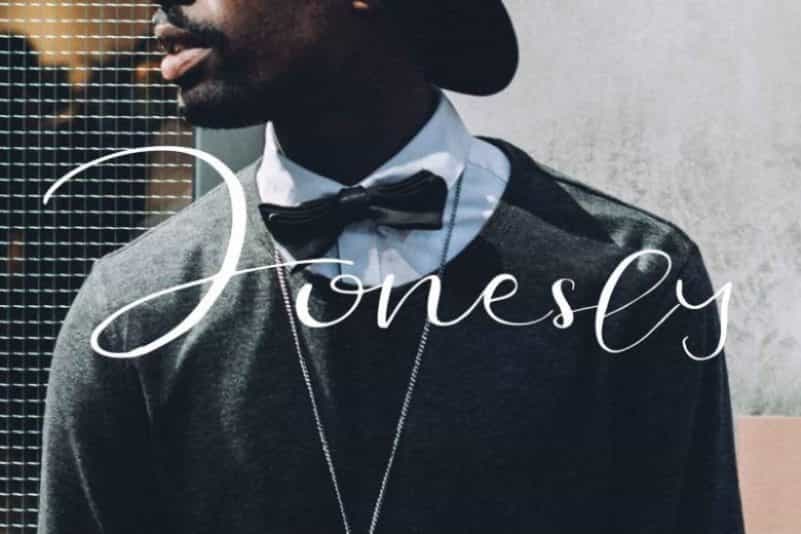
Jonesly Script A new handwritten font that looks natural and very close to handwritten calligraphy. It’s made for all those who would like to have a bit of the feminine and graceful! It is designed and shared by go digital. This font is perfect for use in weddings, book designs, greeting cards, logos, branding, business cards and certificates, and any other design work that requires a classy, formal or luxurious look.